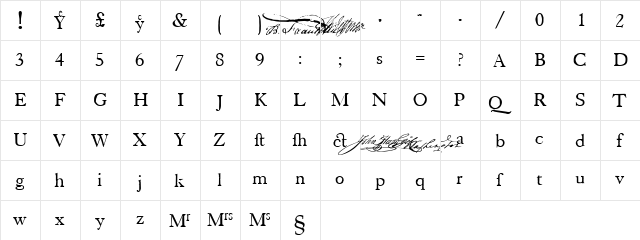
Old State House SAMPLE Normal
Design Context for Old State House SAMPLE Typeface
Old State House SAMPLE offers clean, dependable letterforms without strong stylistic allegiance, making it a practical choice for designers who need flexibility.